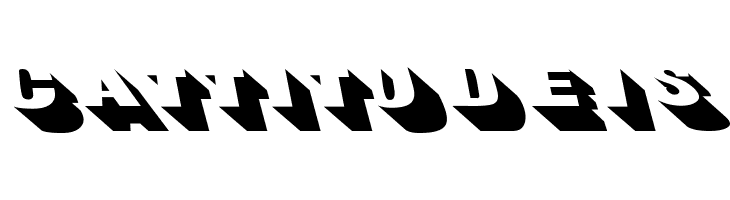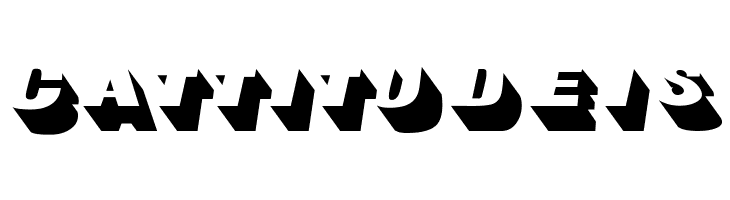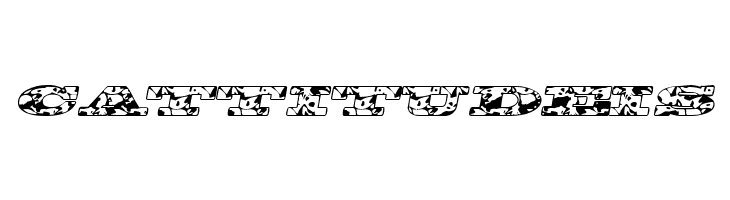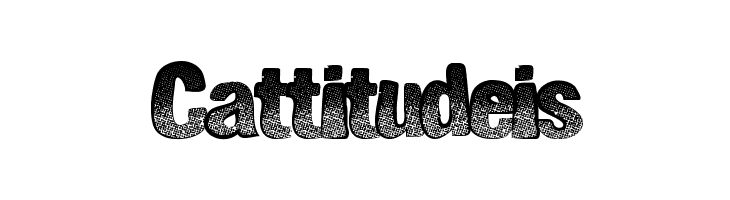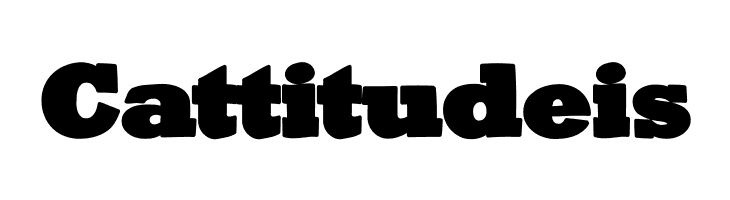
• BigParty
A bold, distressed font with a grunge texture, ideal for edgy designs.
• BigPrint
A bold, textured font with a playful, hand-drawn style.
• Bigroads Script Demo
A bold, dynamic script font with sweeping curves and fluid strokes.
A bold, dynamic script font with a 3D extruded effect, perfect for impactful designs.
• Bigsby Hills Demo
A dynamic and elegant script font with fluid, sweeping strokes.
• Bigshado
A bold, three-dimensional font with a striking shadow effect.
• BigShadows
A bold, three-dimensional font with deep shadows for a dramatic effect.
• BigShadowsLeftOblique
A bold, 3D shadow font with a left-leaning dynamic style.
• BigSlabHammer
A bold, slab serif font with thick serifs and a strong presence.
• Bigsmile Sans
A playful and bold font combining decorative and sans-serif elements.
• Bigsmile Serif
A bold serif font with playful curves and strong presence.
• BigSpit
A bold, patterned font with a playful and modern design.
• BigStar-Regular
A bold, geometric font with angular lines and a modern, industrial style.
• BigstormDemo
A bold, expressive handwritten script font with dynamic strokes.
• Bigswash
A bold, expressive handwritten font with dynamic strokes and playful swashes.
• Bigted FREE
A bold, textured script font with a playful, handcrafted style.
• BigtedFREE
A bold, textured script font with a playful, handcrafted feel.
• Bigtedy
A bold, flowing script font with a dynamic, handwritten style.
• Bigtime Personal Use
A sophisticated and elegant script font with flowing, connected letters.
• Bigwogs GT Demo
A bold, graffiti-inspired font with sharp, angular strokes and dynamic energy.
• Bigwogs GT Demo
A bold, graffiti-inspired font with sharp, angular edges and dynamic style.
• BigWriter-Italic